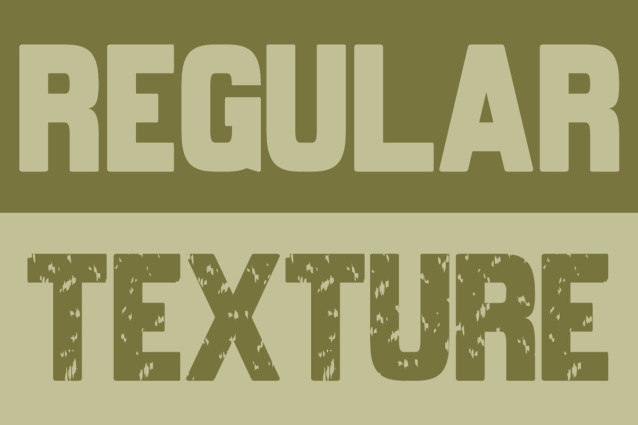
Retro Viber Font a robust sans serif from Masyafi Studio. Inspired by mid-century signage and classic industrial labels, Retro Viber is designed to deliver a strong, confident message with a nostalgic touch.
Whether you need a clean, sharp look for a modern brand or a gritty, weathered texture for a rustic adventure poster, Retro Viber has you covered. The Texture style features a carefully crafted “distressed” effect that saves you time in post-processing, while the Regular style provides a solid foundation for any display design.